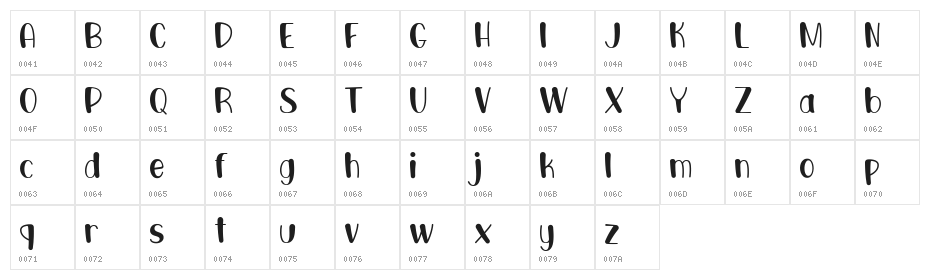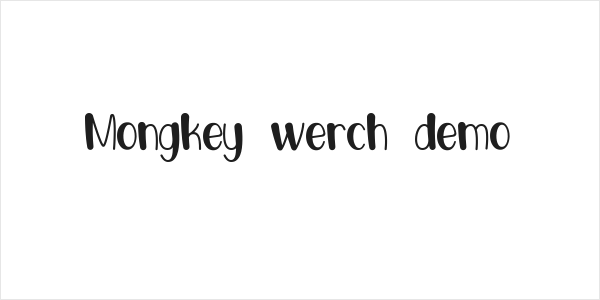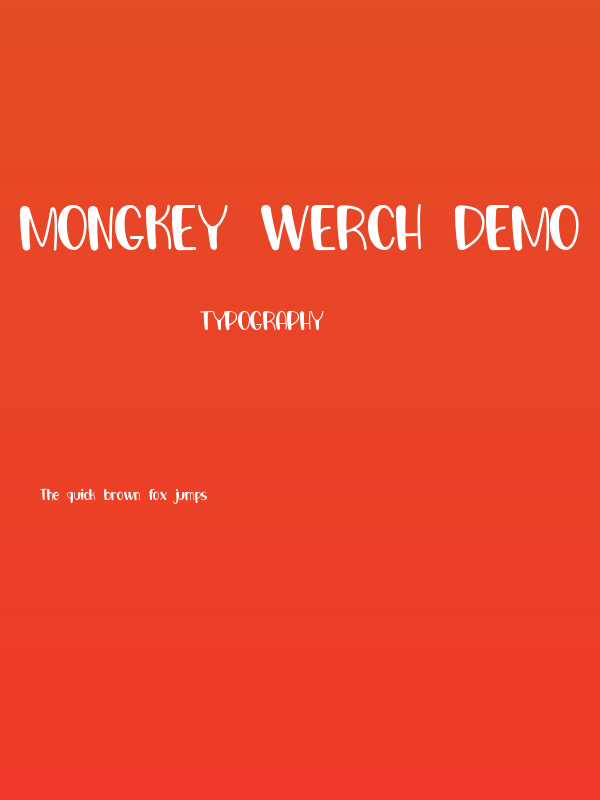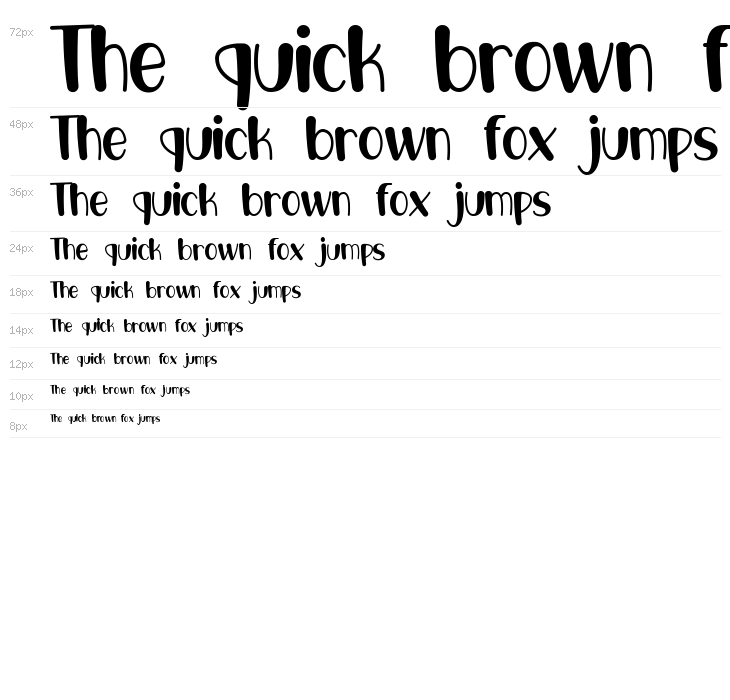
Mongkey werch demo Font
Mongkey werch demo Description
This playful and whimsical font features a unique blend of thick and thin strokes, creating a lively and dynamic appearance. The uppercase letters are bold and rounded, while the lowercase letters maintain a consistent flow with a slightly narrower form. The font's style is characterized by its hand-drawn feel, making it ideal for projects that require a personal touch. The special characters are creatively designed, adding to the font's overall charm. Its distinct style makes it suitable for eye-catching headlines and creative designs.
| Use Case | Headlines, Logos, Creative designs |
| Proposed Projects | Ideal for children's books, playful branding, greeting cards, and creative posters. |